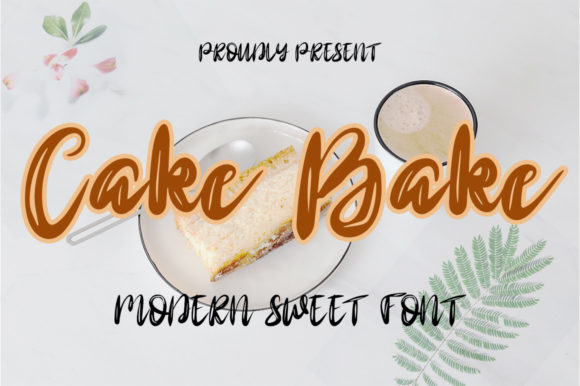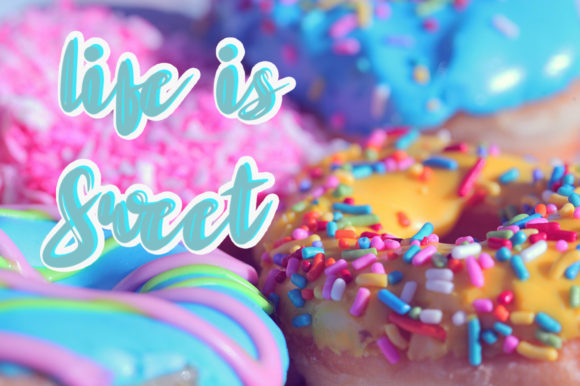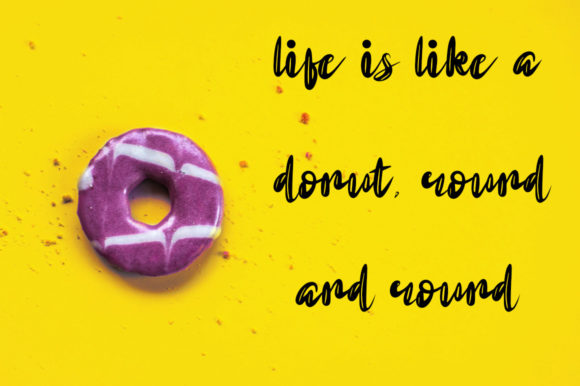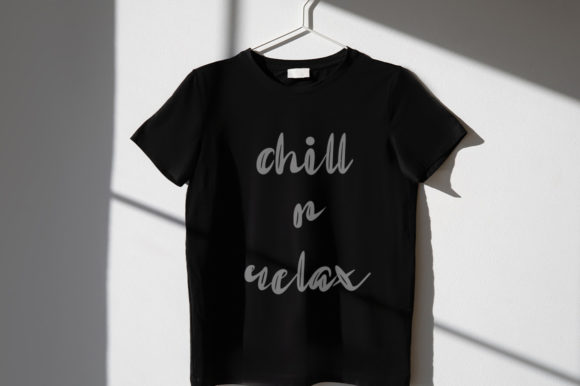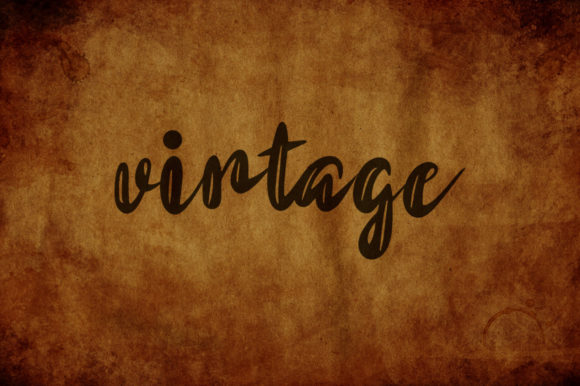
Cake Bake Font: The Sweet Addition to Your Design Collection
Are you a designer, crafter, or DIY enthusiast looking for a font that can add a touch of modern sweetness to your creations? Look no further than the Cake Bake font! This lovely modern font is suitable for any use and can be confidently added to your favorite projects to generate amazing outcomes.
What is Cake Bake Font?
Cake Bake is a beautiful, modern font designed to bring a sense of playfulness and elegance to your designs. Its clean lines, subtle curves, and balanced proportions make it perfect for a wide range of applications, from baking and cooking blogs to craft and DIY websites, and even fashion and lifestyle brands.
Key Features of Cake Bake Font
- Modern and Elegant Design: Cake Bake font boasts a sleek and contemporary design that will add a touch of sophistication to your creations.
- Highly Versatile: This font is suitable for a wide range of uses, including headings, titles, descriptions, and more.
- Easy to Read: The Cake Bake font is designed to be highly legible, making it perfect for body text and captions.
- Supports Multiple Languages: This font supports a wide range of languages, making it a great choice for global brands and multilingual websites.
Why Use Cake Bake Font?
So, why should you choose Cake Bake font for your next project? Here are just a few reasons:
- Adds a Touch of Whimsy: The Cake Bake font has a playful, whimsical feel that’s perfect for brands and projects that want to convey a sense of fun and creativity.
- Perfect for Food and Craft Blogs: If you’re a food blogger, baker, or crafter, this font is a great choice for adding a touch of sweetness to your website or social media channels.
- Great for DIY and Lifestyle Brands: The Cake Bake font is also perfect for DIY and lifestyle brands that want to convey a sense of approachability and friendliness.
How to Use Cake Bake Font
Using the Cake Bake font is easy! Here are a few tips to get you started:
- Pair it with Other Fonts: Try pairing the Cake Bake font with other fonts to create a unique and interesting typography combination.
- Use it for Headings and Titles: The Cake Bake font is perfect for headings and titles, where its modern and elegant design can really shine.
- Experiment with Colors and Textures: Don’t be afraid to experiment with different colors and textures to add depth and interest to your designs.
In conclusion, the Cake Bake font is a lovely modern font that’s perfect for designers, crafters, and DIY enthusiasts looking to add a touch of sweetness to their creations. With its clean lines, subtle curves, and balanced proportions, this font is suitable for a wide range of applications and can be confidently added to your favorite projects to generate amazing outcomes. So why not give it a try and see the difference it can make?